Picking the right font for your tattoo can make all the difference. It's gotta show off what you're feeling, whether it's love, strength, or just plain style. There are so many choices, from fancy swirls to simple lines, and each one says something different.
I've put together 14 super cool fonts for tattoos. They look good, they're easy to read, and they'll still look great years later. These are top picks for names, sayings, and anything else you want to get inked!
1. Great Vibes Font – Elegant Script Handwritten Typeface
Great Vibes is an elegant and playful handwritten script font with a smooth calligraphy style. It is ideal for logos, branding, wedding designs, invitations, greeting cards, packaging, and creative projects. Designed by TypeSETit, this typeface adds a stylish, relaxed, and decorative touch to any design.
2. Rumble Tattoos Font – Bold Edgy Script Tattoo Typeface
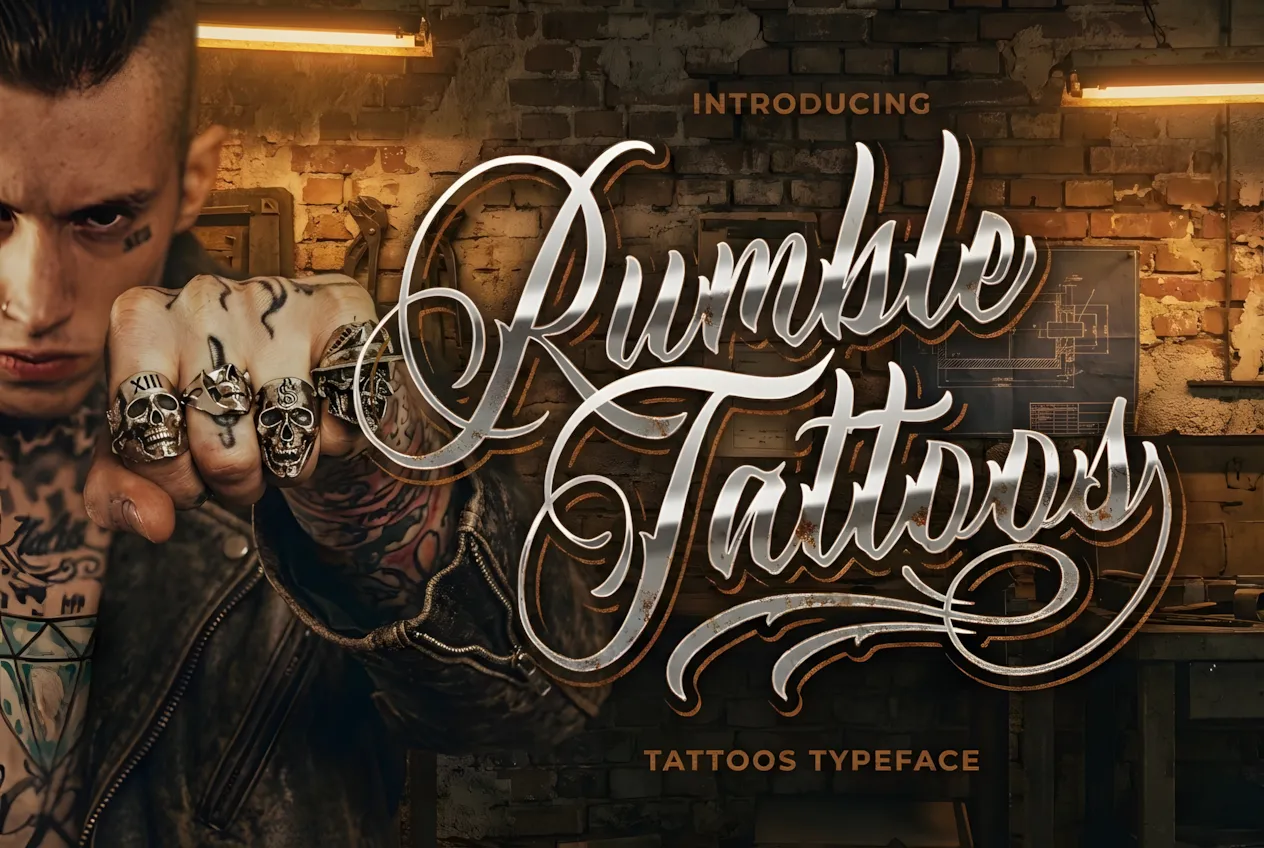
Rumble Tattoos is a powerful and edgy script font inspired by classic tattoo lettering. With its aggressive strokes and commanding style, this tattoo typeface is perfect for logos, apparel, posters, album covers, branding, and bold graphic designs. Rumble Tattoos delivers a strong visual impact and expressive personality, making it ideal for projects that need attitude, intensity, and street-inspired typography.
3. Tattofoo Font – Artistic Script Tattoo Typeface
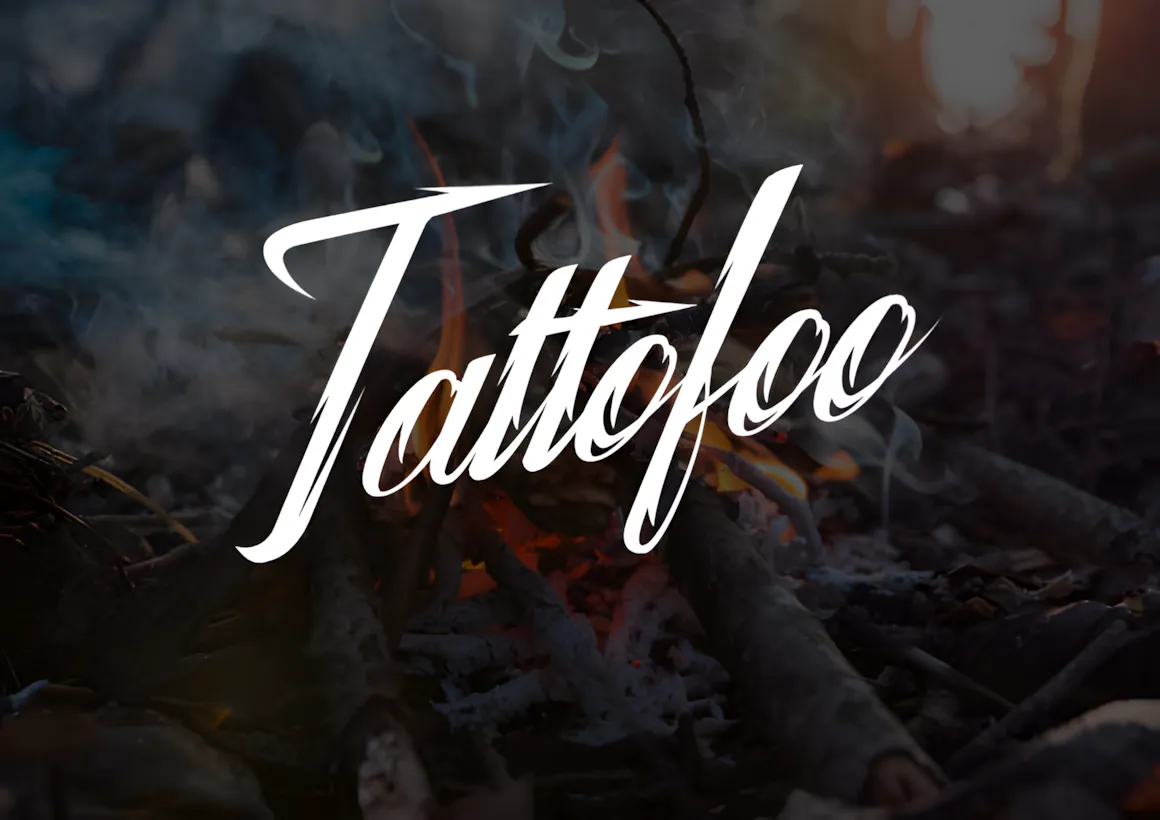
Tattofoo is a stylish script font inspired by the art of tattoo lettering. Featuring expressive strokes and a distinctive handwritten flow, this typeface is perfect for tattoo designs, logos, branding, apparel, posters, album covers, and creative artwork. Tattofoo delivers a unique charm and bold personality, making it an excellent choice for designs that need an artistic, edgy, and authentic tattoo-style look.
4. Bionley Font – Elegant Tattoo Script with Chicano Calligraphy Style
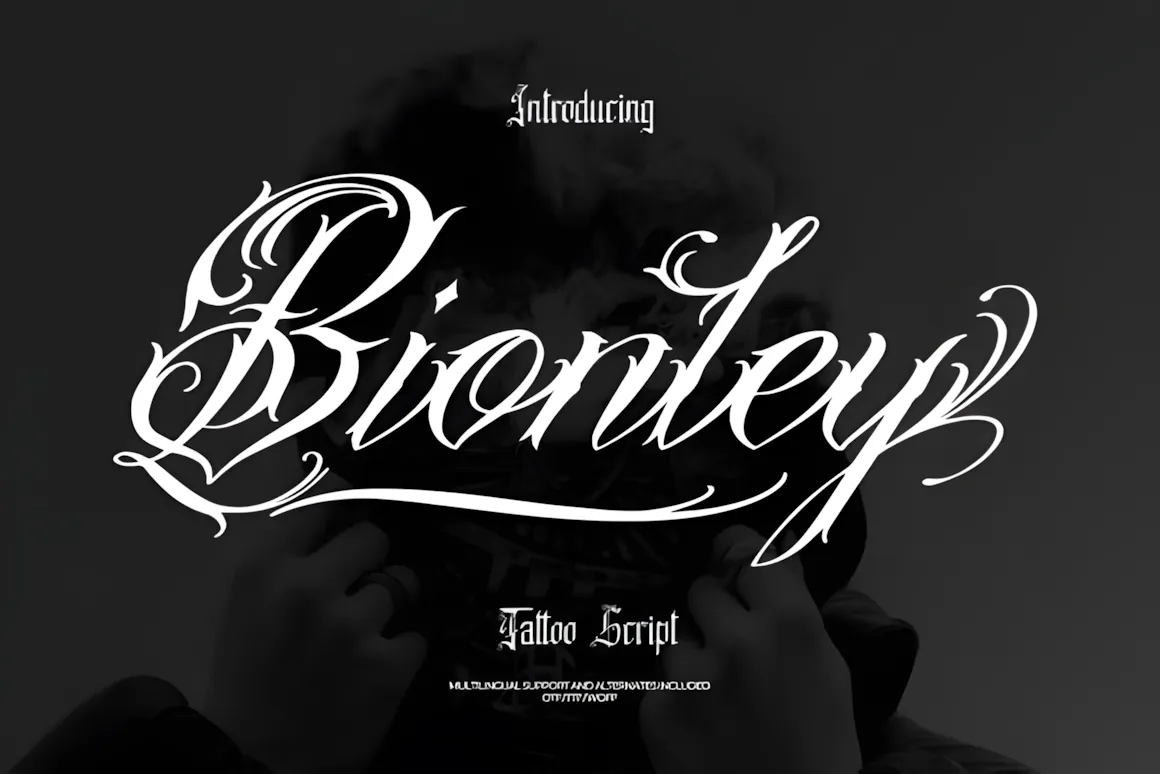
Bionley is a stylish tattoo script font that combines elegant handwritten lettering with classic Chicano and old-school tattoo aesthetics. Featuring smooth, flowing strokes and decorative swashes, this typeface is ideal for tattoos, logos, invitations, posters, album covers, apparel, branding, and personalized designs. Bionley delivers an artistic and sophisticated look with strong influences from tattoo culture, hip hop, lowrider, gangster, and vintage calligraphy styles, making any text appear bold, expressive, and timeless.
5. Floating Script Font – Retro Chicano Script with Vintage Tattoo Style
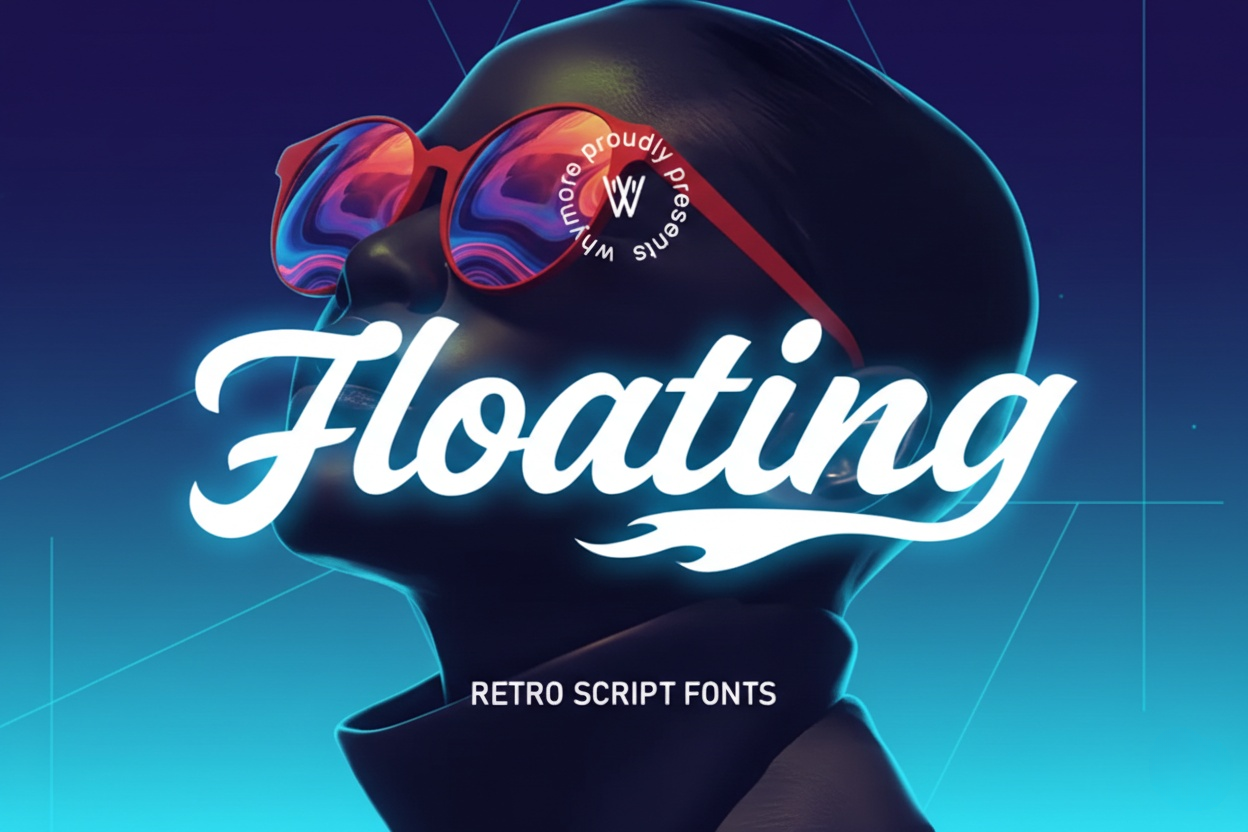
Floating Script is a bold retro script font inspired by Chicano lettering, vintage signage, and classic tattoo typography. Featuring smooth curves, expressive strokes, and handcrafted details, this typeface brings strong personality and timeless style to any design. It is perfect for logos, tattoo studio branding, hip hop and rap merchandise, streetwear, lowrider graphics, album covers, and vintage-inspired signage. Floating Script delivers an authentic, artistic, and confident look that transforms text into a powerful visual identity.
6. Lucie Ortegha Font – Script Blackletter Tattoo Typeface
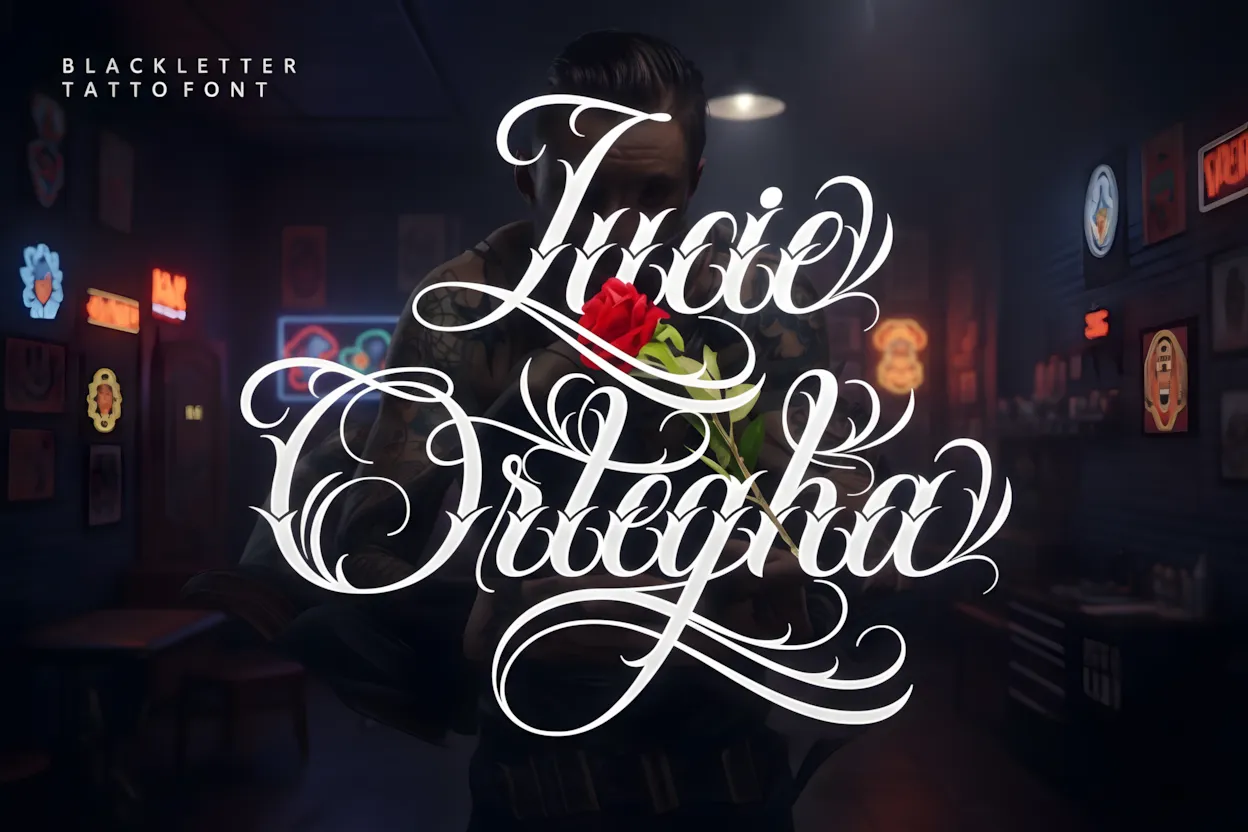
Lucie Ortegha is a distinctive font that blends elegant script handwriting with bold blackletter influences. This unique combination creates a powerful and expressive tattoo-style typeface, perfect for tattoos, band logos, posters, mockups, album artwork, and statement typography. With its dramatic curves, sharp gothic details, and artistic flow, Lucie Ortegha adds strong character, personality, and attitude to any design, making it ideal for projects that demand impact and originality.
7. Ruthlock Font – Modern Bold Script Tattoo Typeface
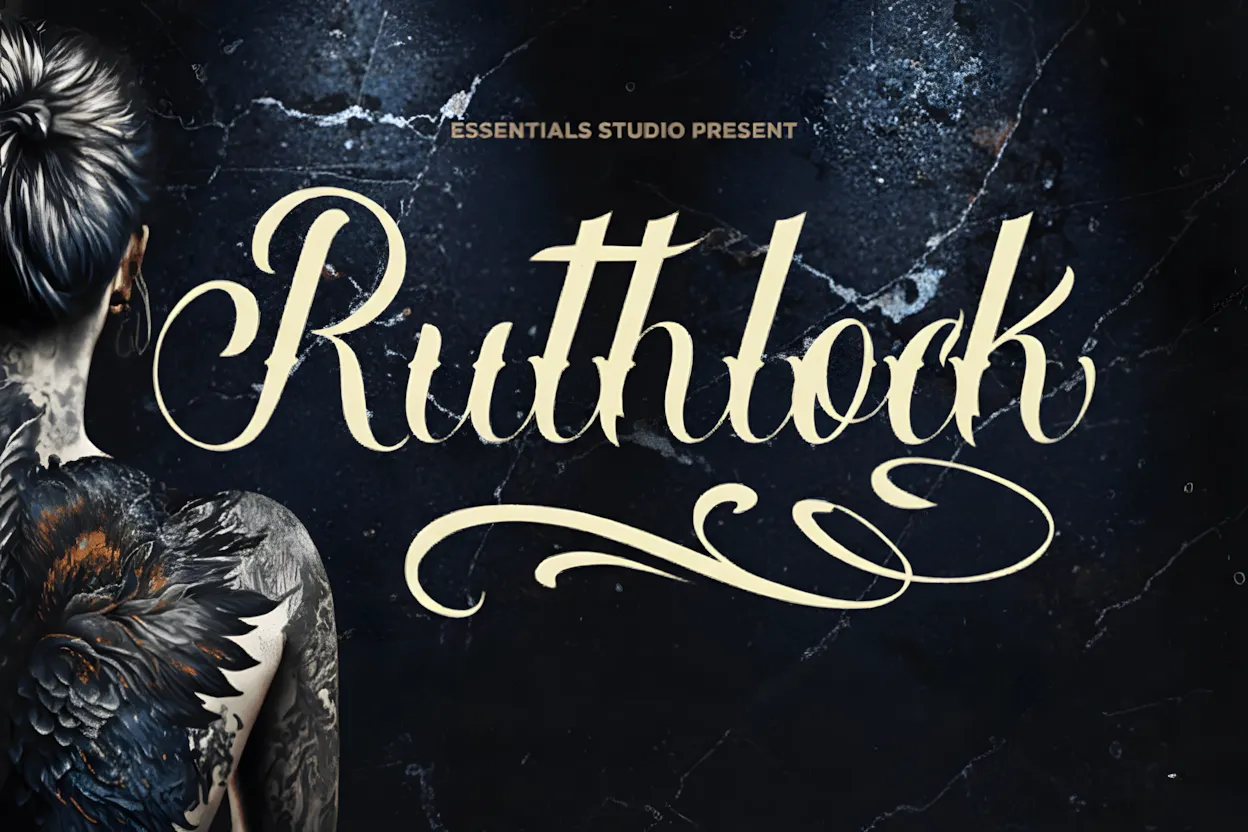
Ruthlock is a modern script tattoo font crafted by Essentials Studio, combining bold character with refined elegance. Designed with smooth curves, expressive strokes, and balanced contrast, this typeface delivers a strong yet beautiful aesthetic. Ruthlock is perfect for tattoo studio branding, logos, custom lettering, posters, apparel, and modern branding projects that require a distinctive typographical presence. Its harmonious blend of daring boldness and timeless beauty makes every design feel confident, artistic, and memorable.
8. Historic Script Tattoo Font – Classy Handwritten Typograph
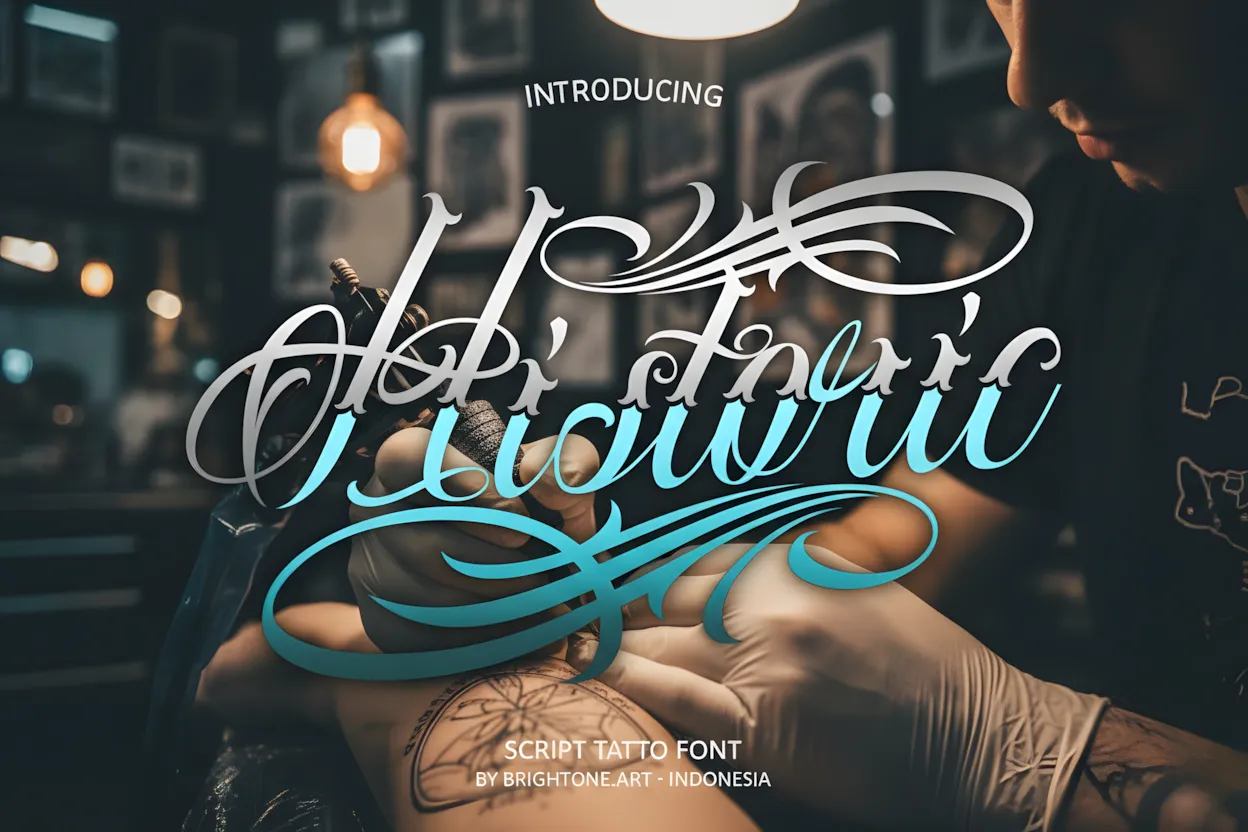
Historic is a stylish handwritten tattoo script font that blends classic elegance with a modern, edgy attitude. Designed with smooth curves and decorative lettering, this font is perfect for tattoo lettering, logos, magazines, branding, packaging, stickers, merchandise, T-shirts, and fashion projects. Its classy yet bold character helps your designs stand out from the crowd, making it an excellent choice for streetwear, graffiti-inspired visuals, cult and gangsta styles, or premium creative branding. Add Historic to your typography collection and give your projects a distinctive, professional, and unforgettable look.
9. Reagen Youth Blackletter Tattoo Font – Modern Script Typography
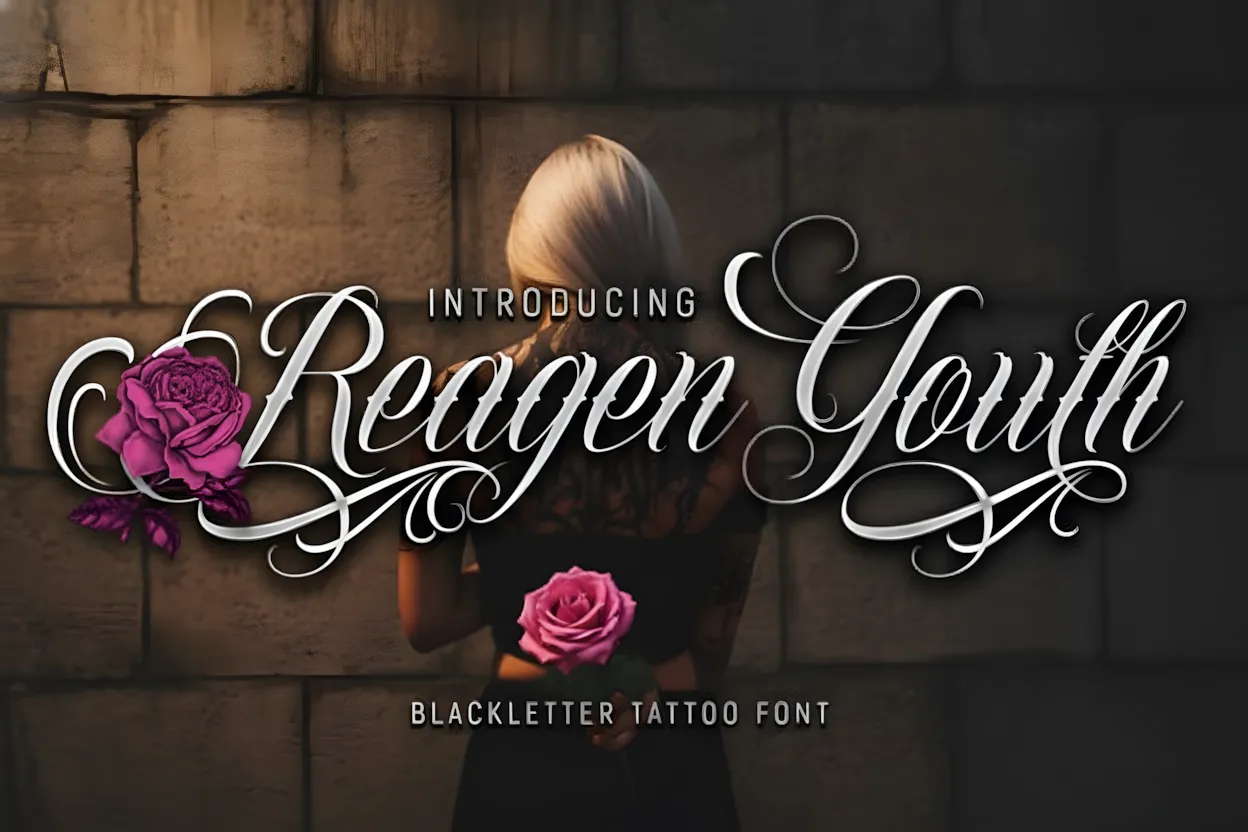
Reagen Youth is a contemporary script blackletter tattoo font that combines classic gothic vibes with a modern, youthful edge. Designed to make a strong visual statement, this font works perfectly for logos, T-shirt designs, posters, flyers, and brand identity projects. Its elegant curves and powerful blackletter character give your designs a confident, stylish look that instantly stands out. Use Reagen Youth to elevate your branding, fashion, and creative projects with a bold, expressive, and unforgettable typographic style.
10. Ningrat Script Tattoo Font – Elegant Luxury Typography
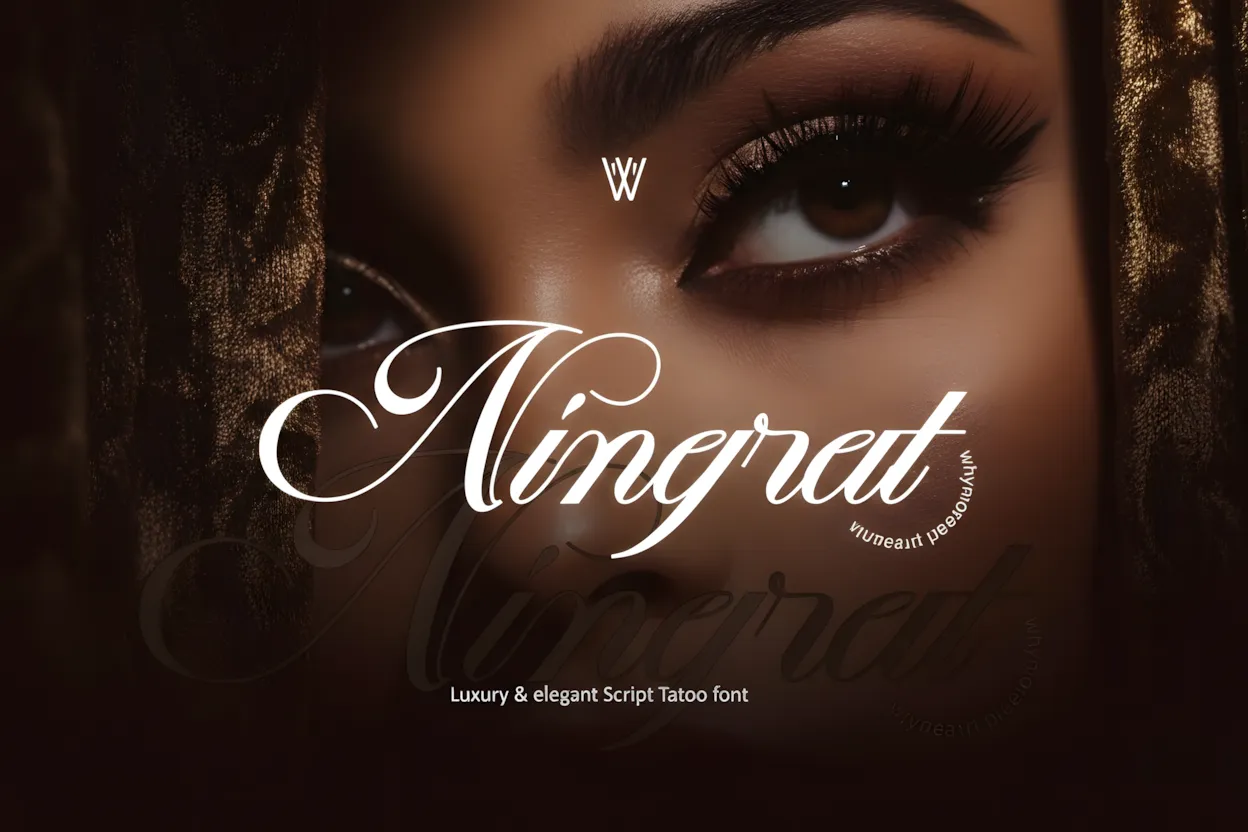
Ningrat Font is a luxurious and highly versatile script tattoo font designed to adapt effortlessly to any creative style. With its elegant curves and refined handwritten feel, this typeface is ideal for tattoo designs, calligraphy projects, graffiti art, logos, and premium branding. Ningrat brings a perfect balance of sophistication and artistic freedom, allowing your designs to look classy, expressive, and visually striking. Choose Ningrat Font to unlock endless creative possibilities and elevate your typography with timeless elegance and modern style.
11. Nocthane Tattoo Font – Classic Blackletter Script
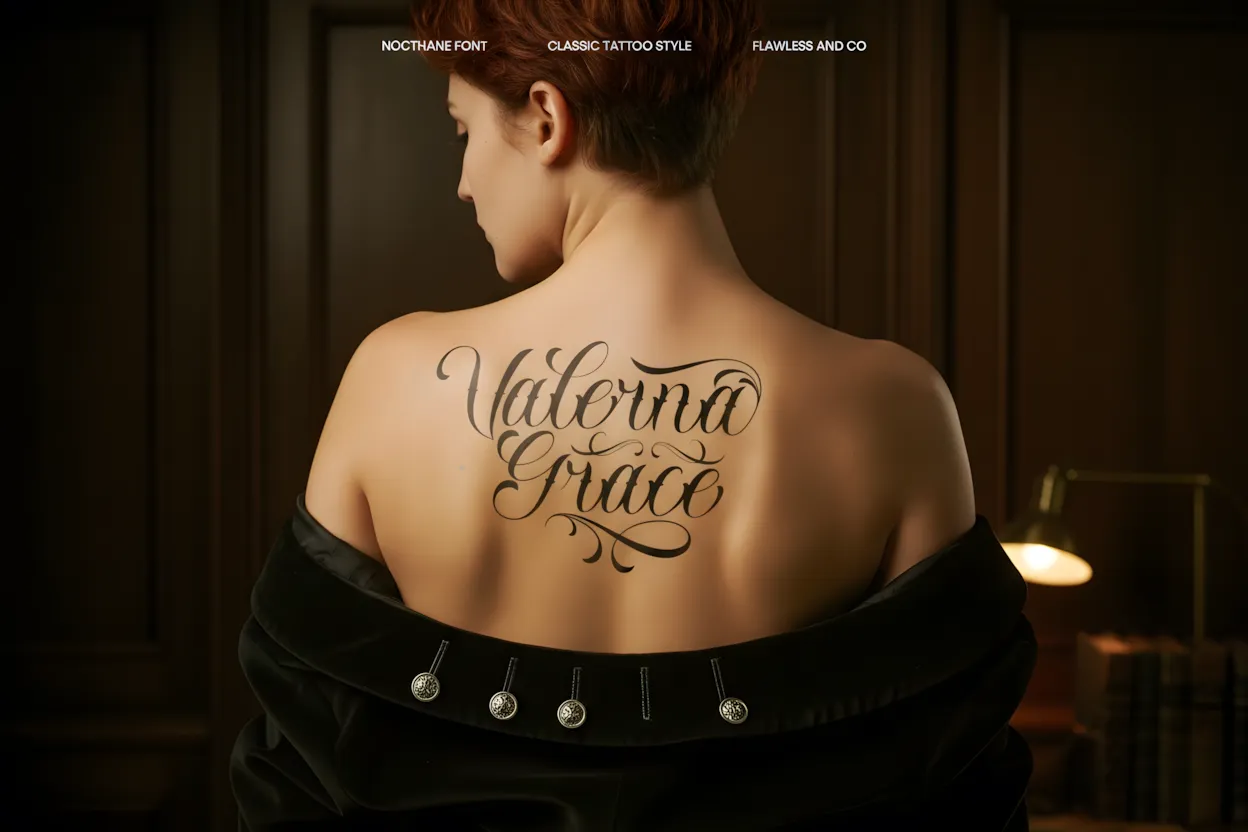
Nocthane is a classic tattoo-style blackletter font that captures the raw spirit of traditional ink art with a refined, modern edge. Blending elegant script letterforms with sharp decorative swashes, this font delivers a powerful balance of beauty and rebellion. Every stroke is crafted to flow naturally, making Nocthane perfect for tattoo-inspired branding, apparel, posters, logos, and creative projects that demand confidence and personality. Use Nocthane to create typography that feels bold, expressive, and timeless—designed to leave a strong visual impression.
12. Faithless Blackletter Script Font – Authentic Tattoo Calligraphy
Faithless is a powerful tattoo-inspired blackletter script font collection, crafted for artists and designers who demand authenticity and visual impact. Featuring expressive calligraphy letterforms with a dark, elegant attitude, Faithless is ideal for custom tattoo designs, logos, branding, and bold creative artwork. Fully compatible with Procreate and Photoshop, this font integrates seamlessly into any professional workflow. With its versatility, strong character, and unique style, Faithless helps your designs stand out with confidence, depth, and unmistakable tattoo culture aesthetics.
13. Libertad Script Tattoo Font – Elegant Handwritten Calligraphy
Libertad is an exquisite and distinctive handwritten script tattoo font designed to captivate at first glance. Blending classy calligraphic influences with a fresh, contemporary feel, this font delivers elegance, flow, and personality in every stroke. Perfect for tattoo designs, logos, branding, posters, and artistic typography, Libertad brings a refined yet expressive style to your creative projects. Choose Libertad to elevate your designs with timeless beauty, modern confidence, and a truly unforgettable handwritten aesthetic.
14. Fadli Script Tattoo Font – Handwritten Lettering
Fadli Script is a stylish handwritten tattoo-inspired font designed to deliver character, flow, and strong visual impact. Influenced by classic tattoo lettering, this script font is perfect for branding, logo design, apparel, merchandise, and decorative typography. Its smooth curves and expressive strokes help create designs that feel personal, confident, and memorable. Choose Fadli Script to give your creative projects a distinctive handwritten look that leaves a lasting impression.
Read More: While script fonts make awesome tattoos, another style that has a strong historical tie to tattoo culture—and is now making a big comeback in gaming—is explored in our list of 15 Best Blackletter Fonts for Gaming Logos.
Tattoo Fonts That Last
Some fonts don't age well. Thin lines can fade, and small details can blur. If you want your tattoo to look good for years, pick fonts with thicker lines and simple designs.
There are tons of script fonts to pick from, so you can show off any story you want. It could be something sweet or something strong. You want something fancy or something that feels like your handwriting. What matters most is that the font fits how you feel about the tattoo. These 14 fonts are just a start. Make sure you pick something you'll love forever since it's permanent!